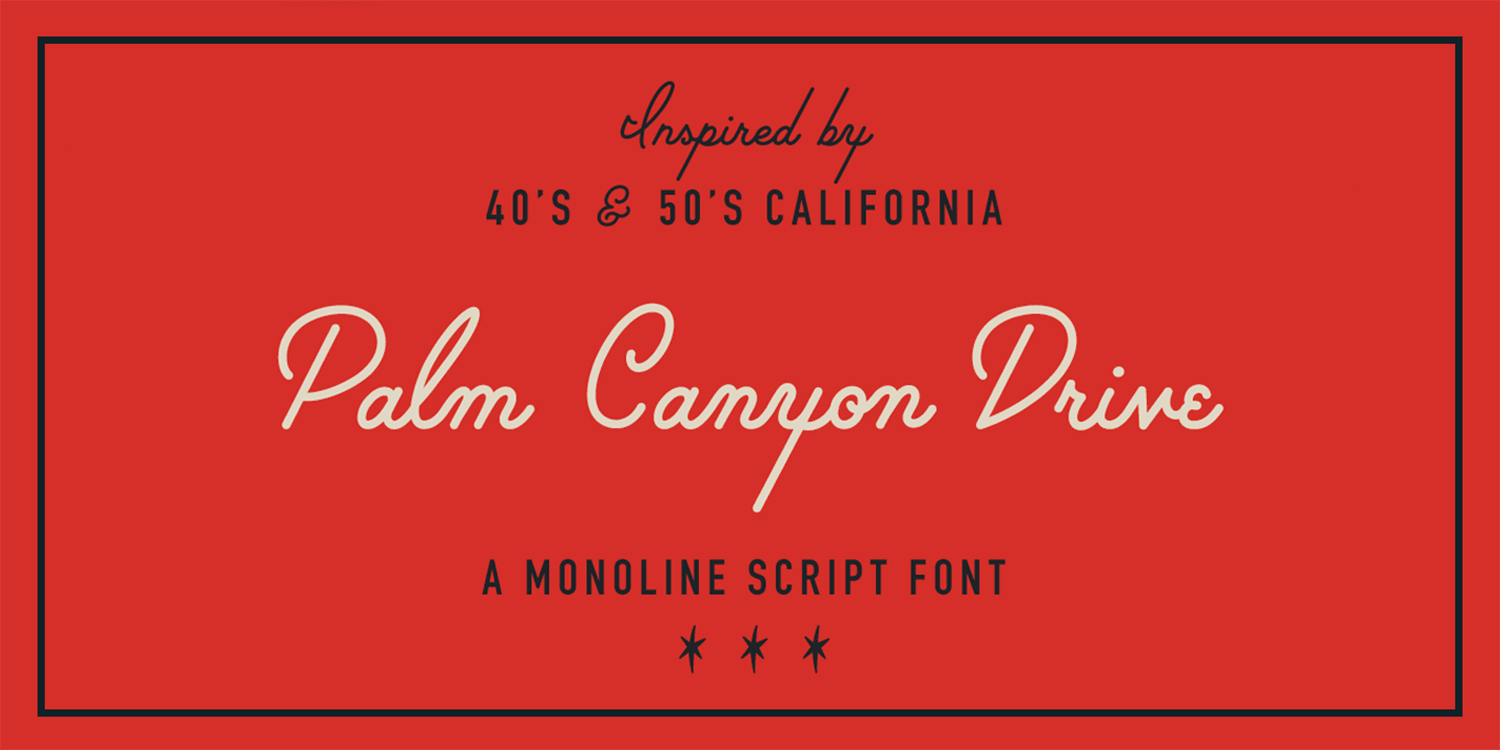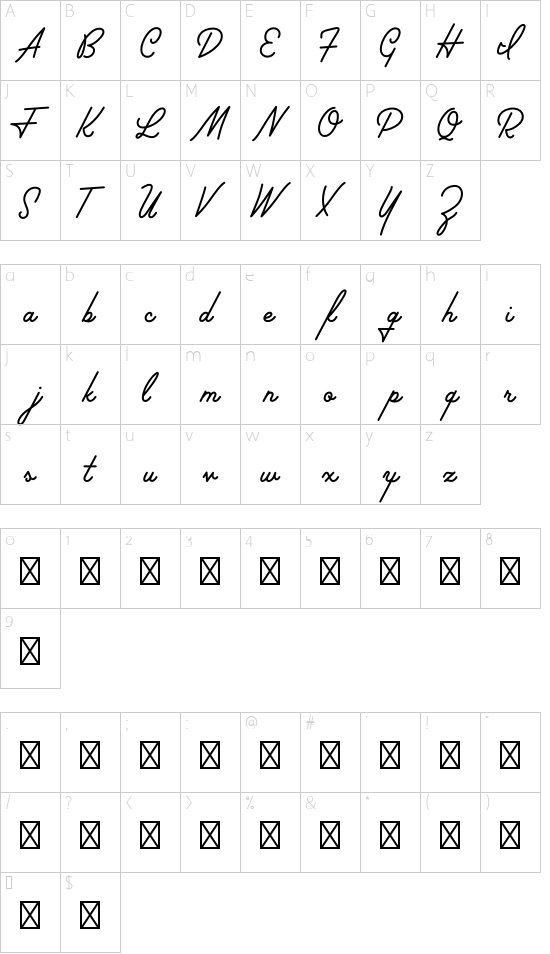
Palm Canyon Font
Palm Canyon Font - Palm canyon drive is a monoline script inspired by retro matchbook covers, travel postcards, tiki bars and hollywood. Palm canyon drive is a monoline script inspired by retro matchbook covers, travel postcards, tiki bars and hollywood.
Palm canyon drive is a monoline script inspired by retro matchbook covers, travel postcards, tiki bars and hollywood. Palm canyon drive is a monoline script inspired by retro matchbook covers, travel postcards, tiki bars and hollywood.
Palm Canyon Drive Font by RetroSupply Co.
Palm canyon drive is a monoline script inspired by retro matchbook covers, travel postcards, tiki bars and hollywood. Palm canyon drive is a monoline script inspired by retro matchbook covers, travel postcards, tiki bars and hollywood.
Palm Canyon Drive [Deluxe Edition] RetroSupply Co.
Palm canyon drive is a monoline script inspired by retro matchbook covers, travel postcards, tiki bars and hollywood. Palm canyon drive is a monoline script inspired by retro matchbook covers, travel postcards, tiki bars and hollywood.
Palm Canyon Drive Trial font details
Palm canyon drive is a monoline script inspired by retro matchbook covers, travel postcards, tiki bars and hollywood. Palm canyon drive is a monoline script inspired by retro matchbook covers, travel postcards, tiki bars and hollywood.
Palm Canyon Drive Is A Monoline Script Inspired By Retro Matchbook Covers, Travel Postcards, Tiki Bars And Hollywood.
Palm canyon drive is a monoline script inspired by retro matchbook covers, travel postcards, tiki bars and hollywood.